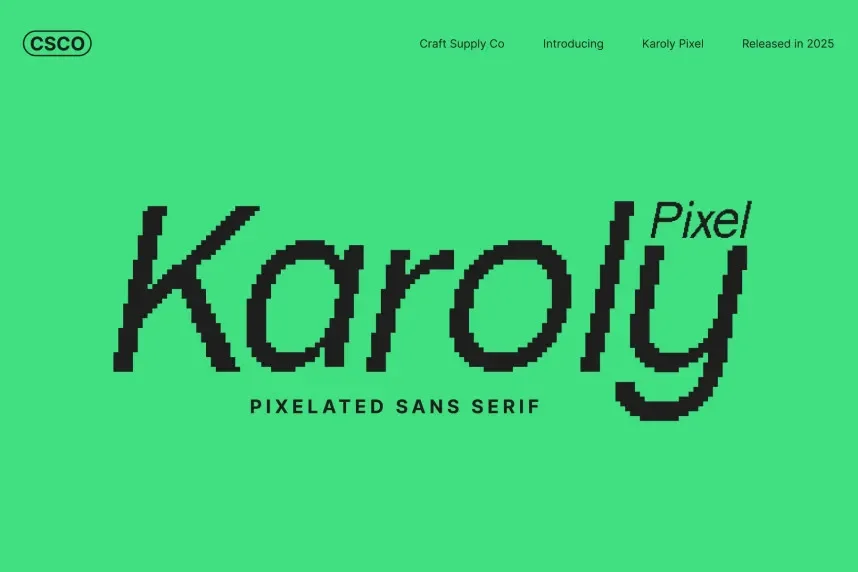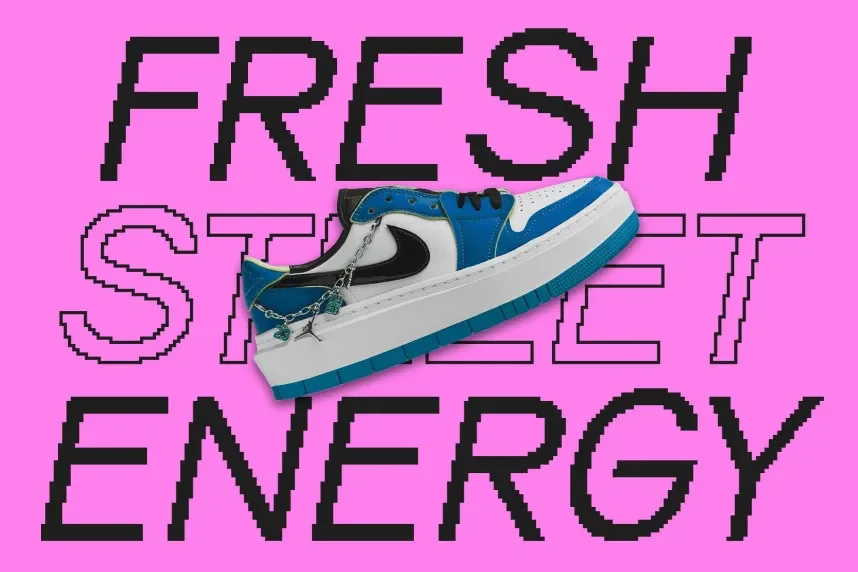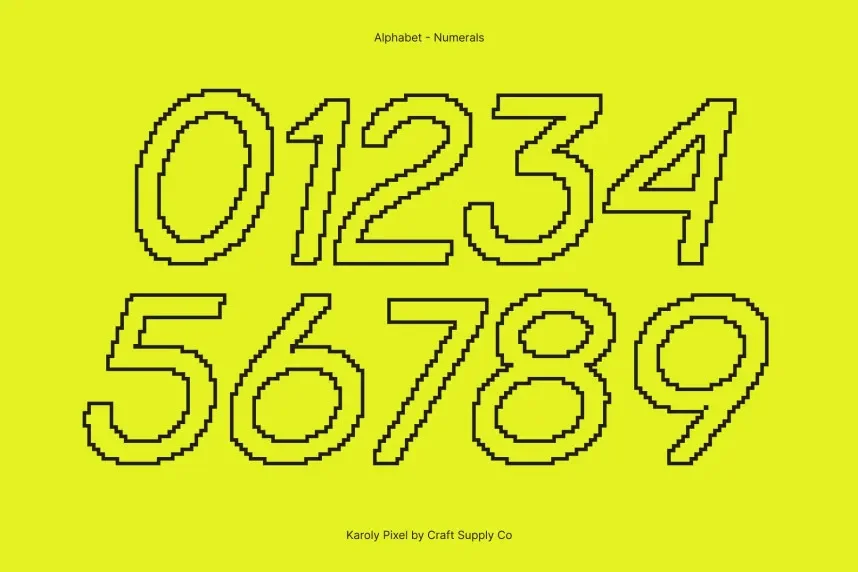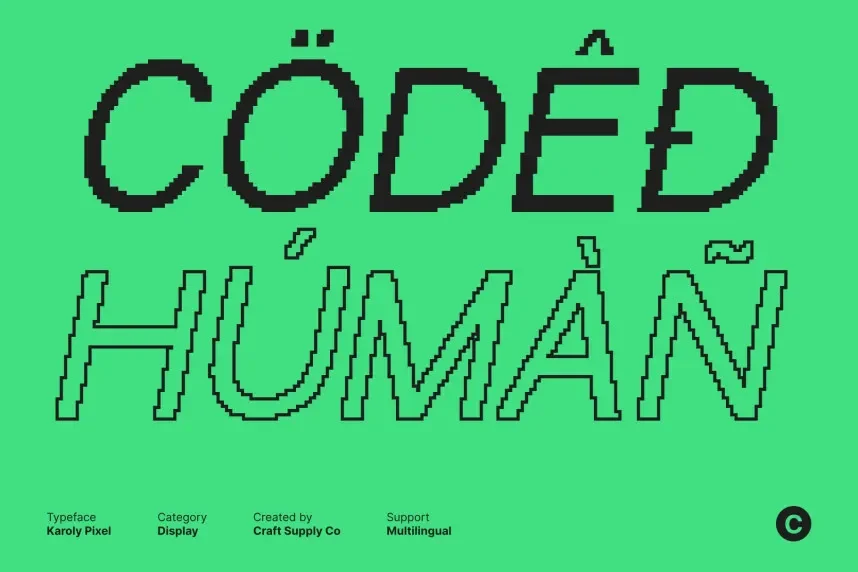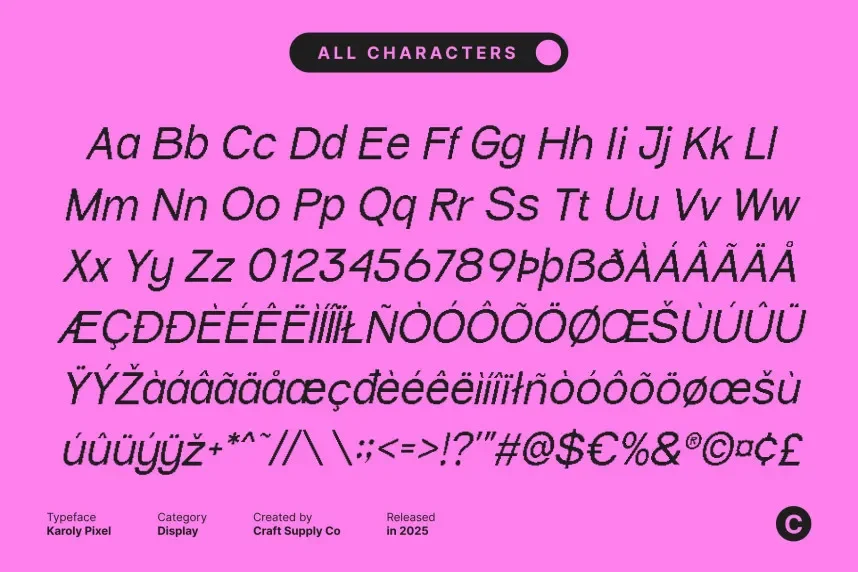
Karoly Pixel Font is a clean, minimalist font with a pixelated style that brings a touch of retro to digital designs. It’s ideal for projects that require clarity and a unique, digital aesthetic, such as branding, signage, and app interfaces.